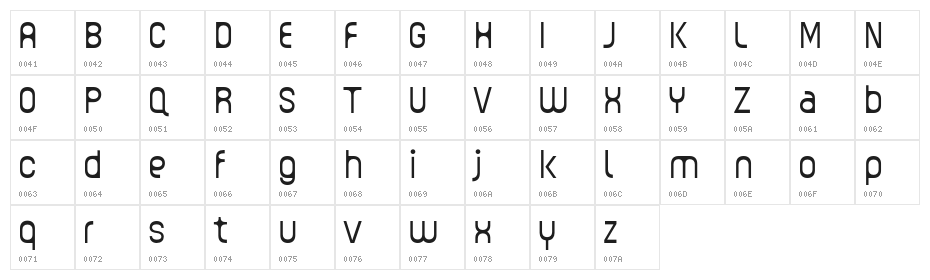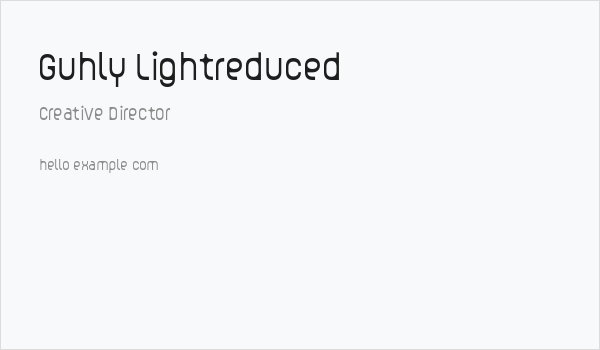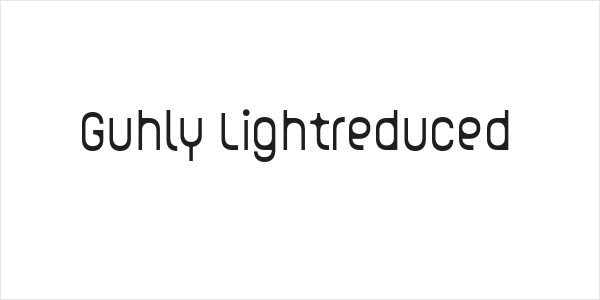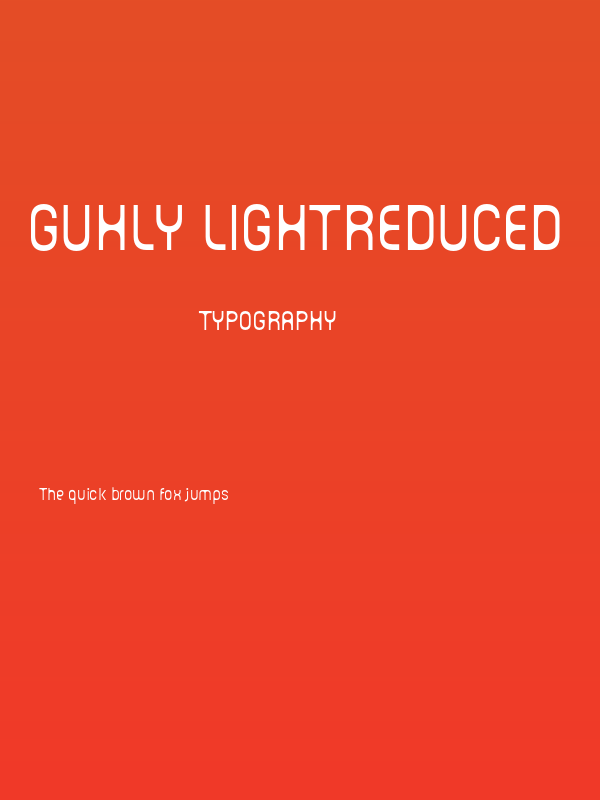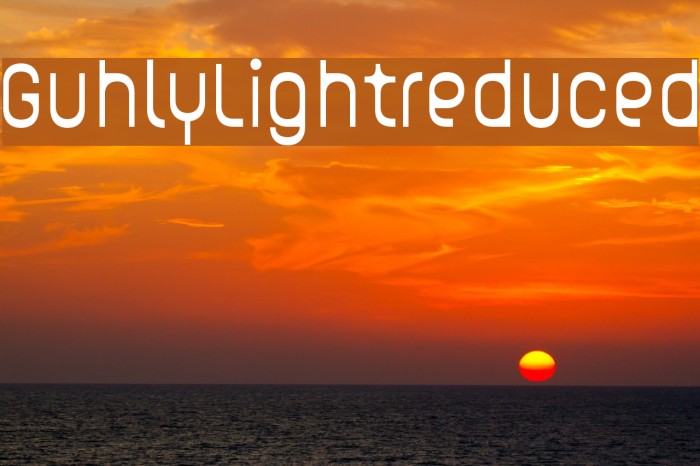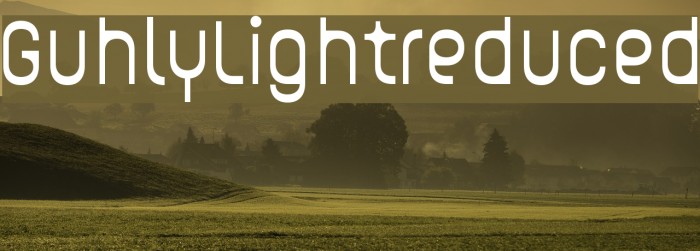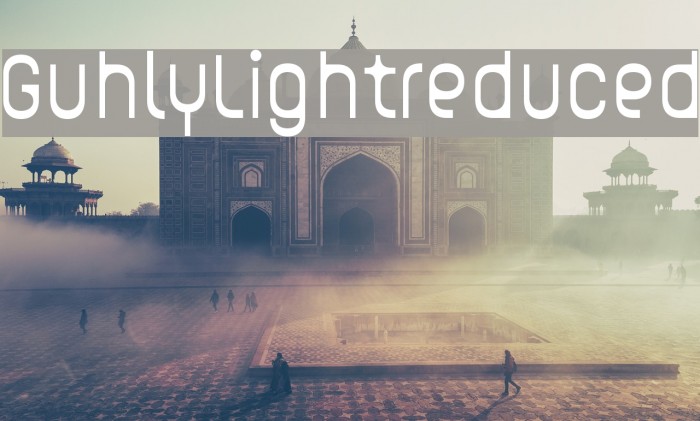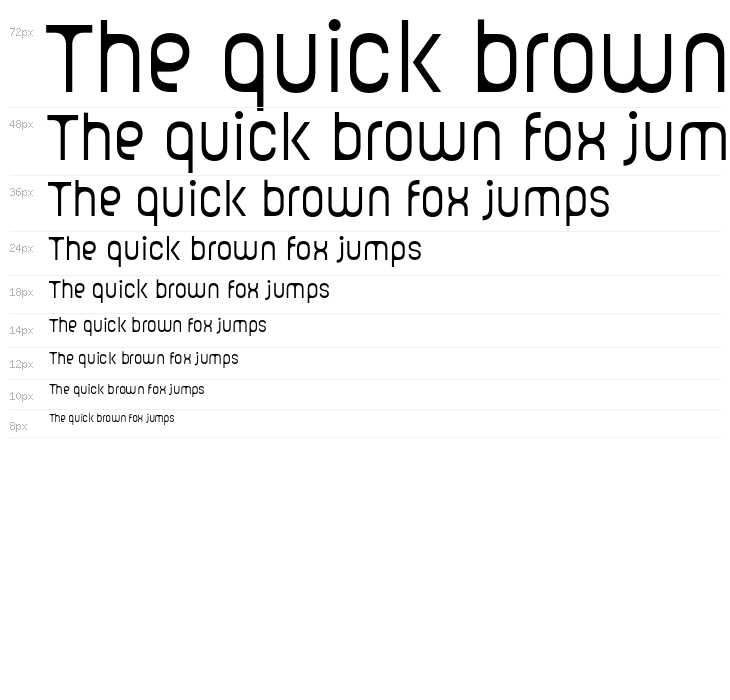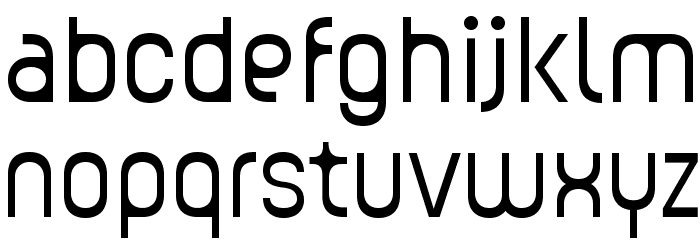
Guhly-Lightreduced Font
Guhly-Lightreduced Description
This font features a modern and clean design with rounded edges, giving it a friendly and approachable appearance. The characters are evenly spaced, providing a balanced and harmonious look. The uppercase letters are bold and prominent, while the lowercase letters maintain a consistent style with slight variations in stroke thickness. The numerals are clear and easy to read, making them suitable for various applications. Special characters like $?&%!#*= are designed to match the overall aesthetic, ensuring a cohesive look across all text elements.
| Proposed Projects | Ideal for branding, web design, and advertising where a friendly and modern look is desired. |